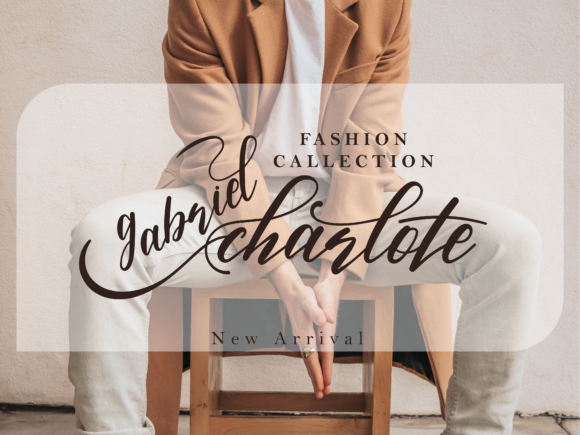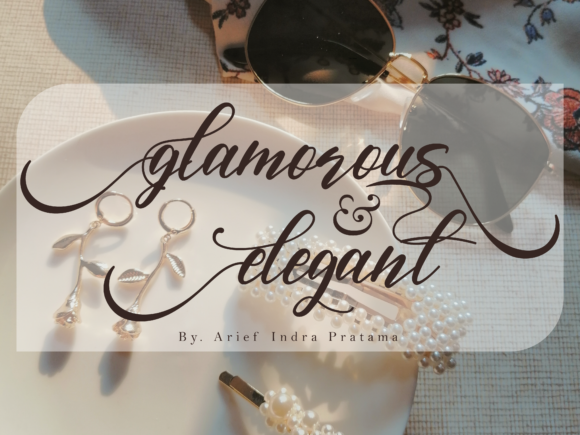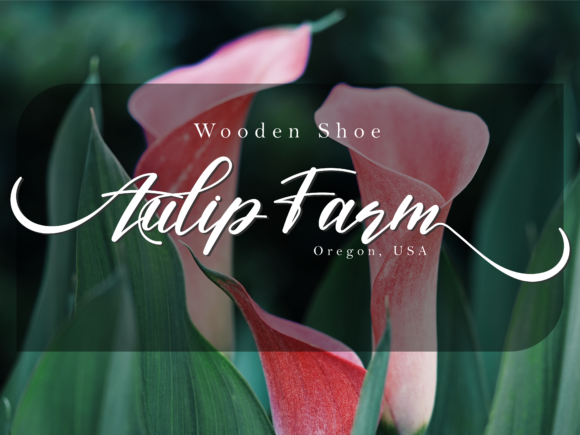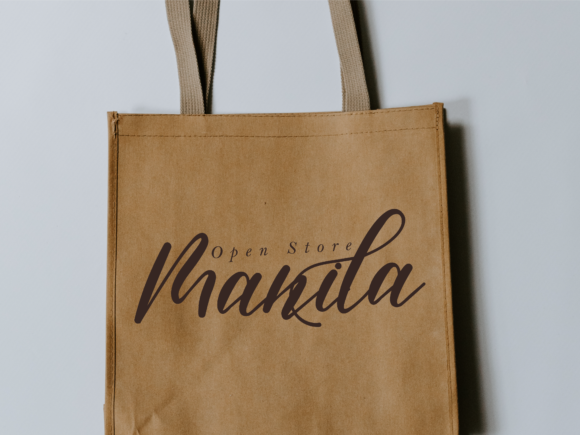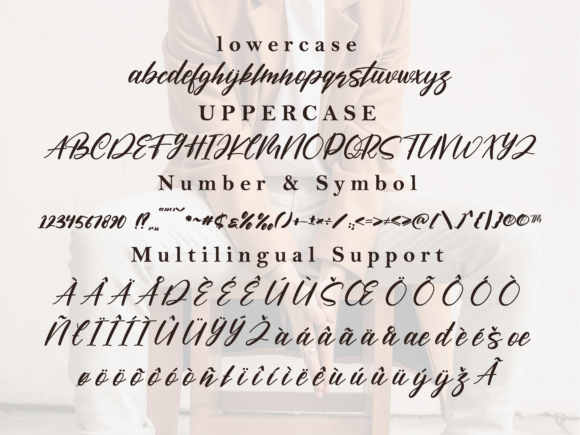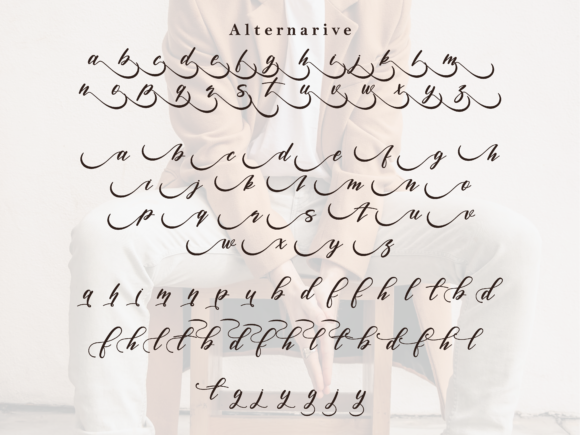
Momentum Font
About Momentum Font
“Momentum” is a romantic and enchanting calligraphy script font characterized by its characters that appear to gracefully dance along the baseline. This font possesses the power to infuse your creative designs or projects with a touch of luxury and allure.
The font’s romantic and sweet calligraphy style brings a sense of elegance and charm to your creations. Whether you’re working on wedding invitations, branding materials, quotes, or any other design project that requires a hint of romance, “Momentum” has the ability to elevate your work with its luxurious and artistically crafted aesthetic.
The characters that seem to dance along the baseline contribute to the font’s dynamic and captivating look. This feature adds movement and visual interest, making it perfect for designs that seek to evoke emotion and captivate the viewer’s attention.
In summary, “Momentum” is more than just a font—it’s a creative instrument that adds a romantic and enchanting touch to your ideas. Its unique dancing baseline and sweet calligraphy style make it a valuable asset for designers striving to create visually captivating, luxurious, and aesthetically pleasing designs that leave a lasting impression.